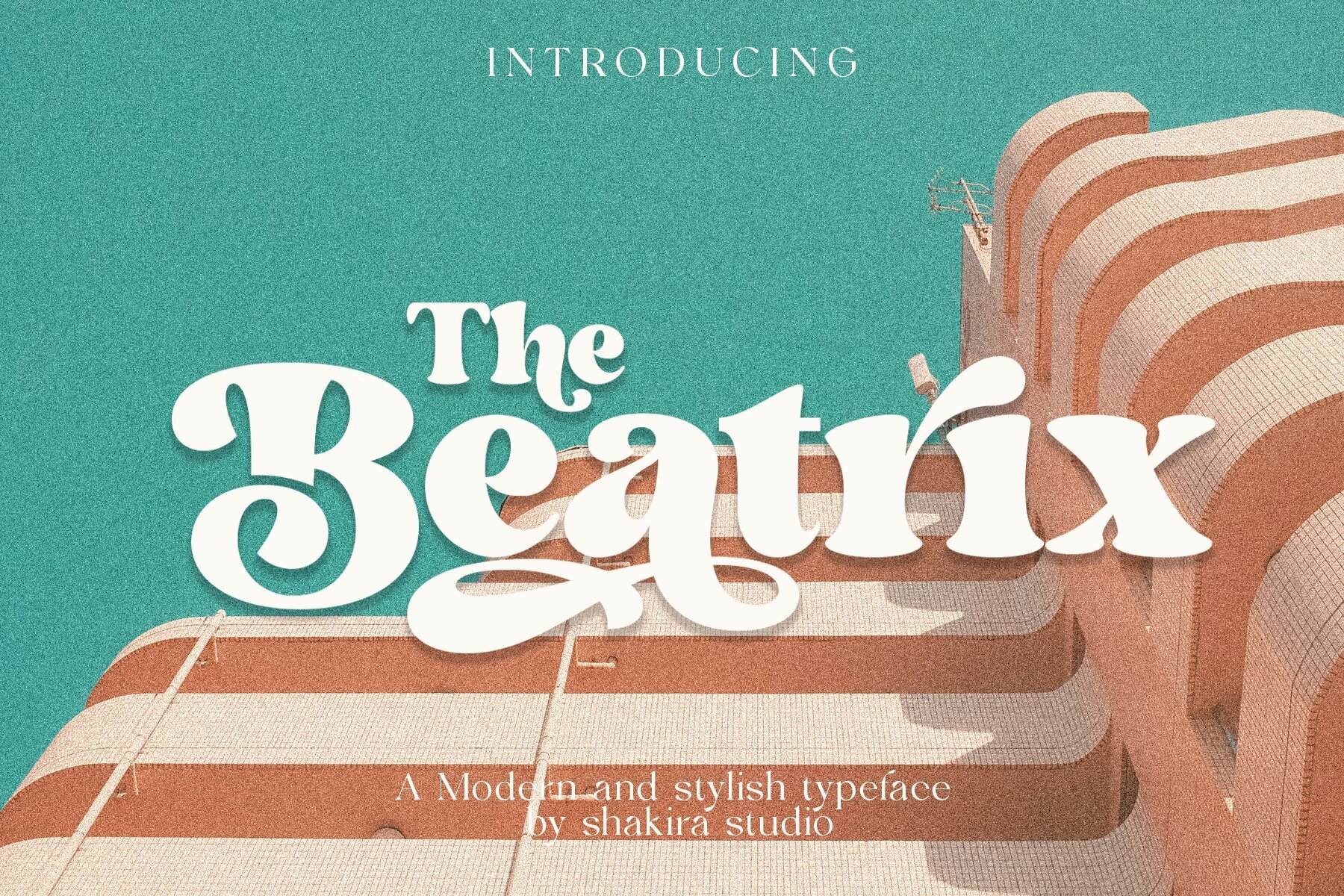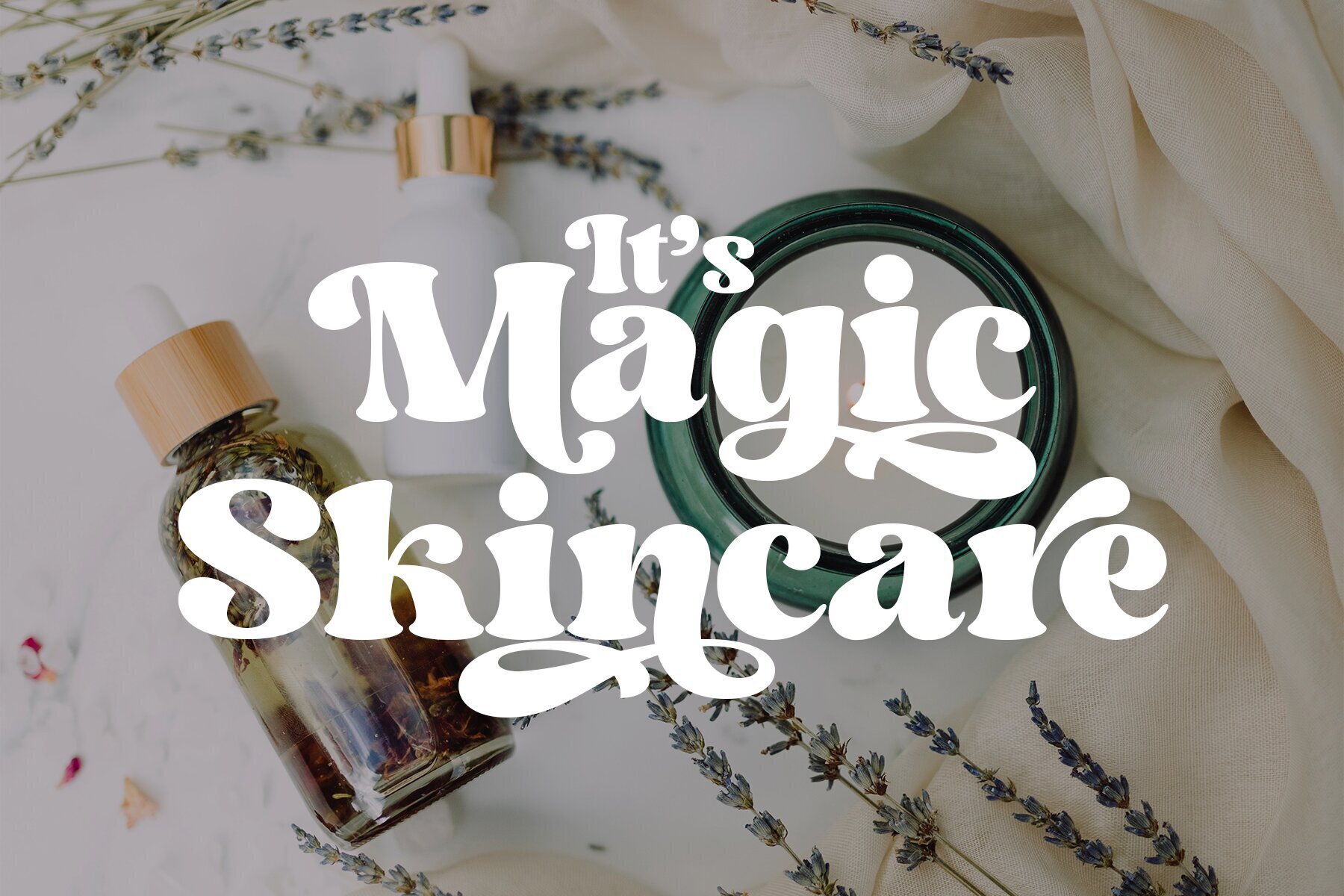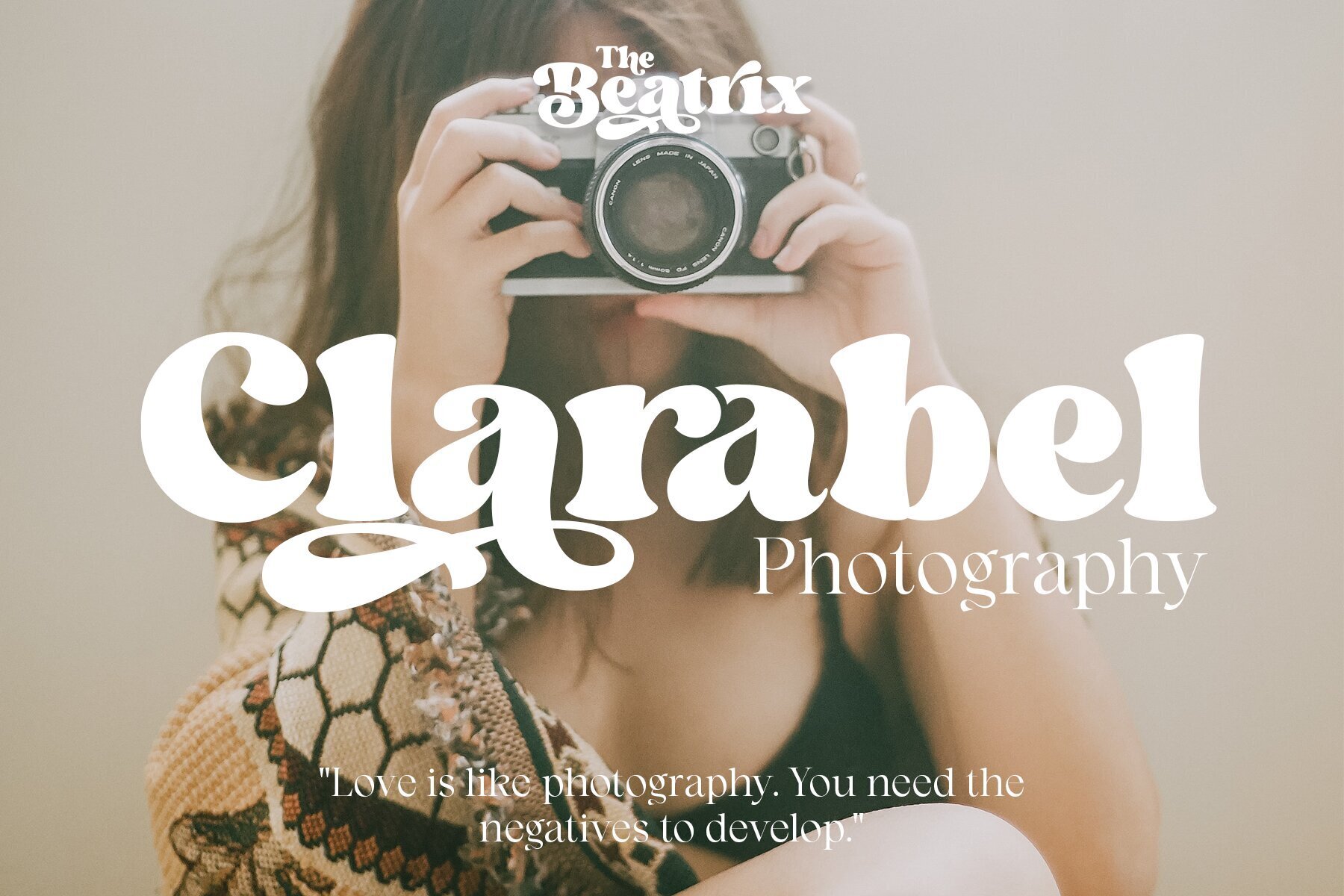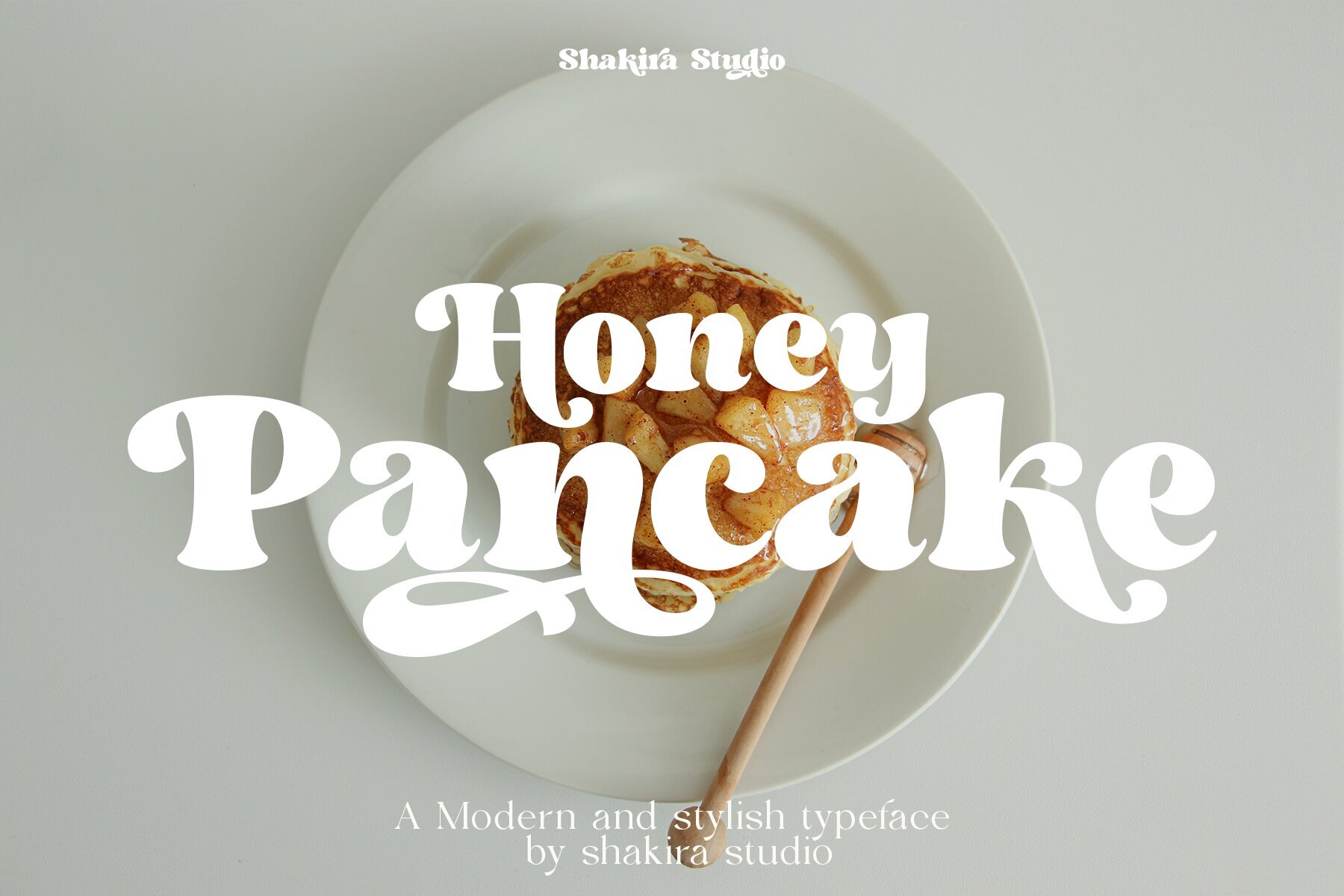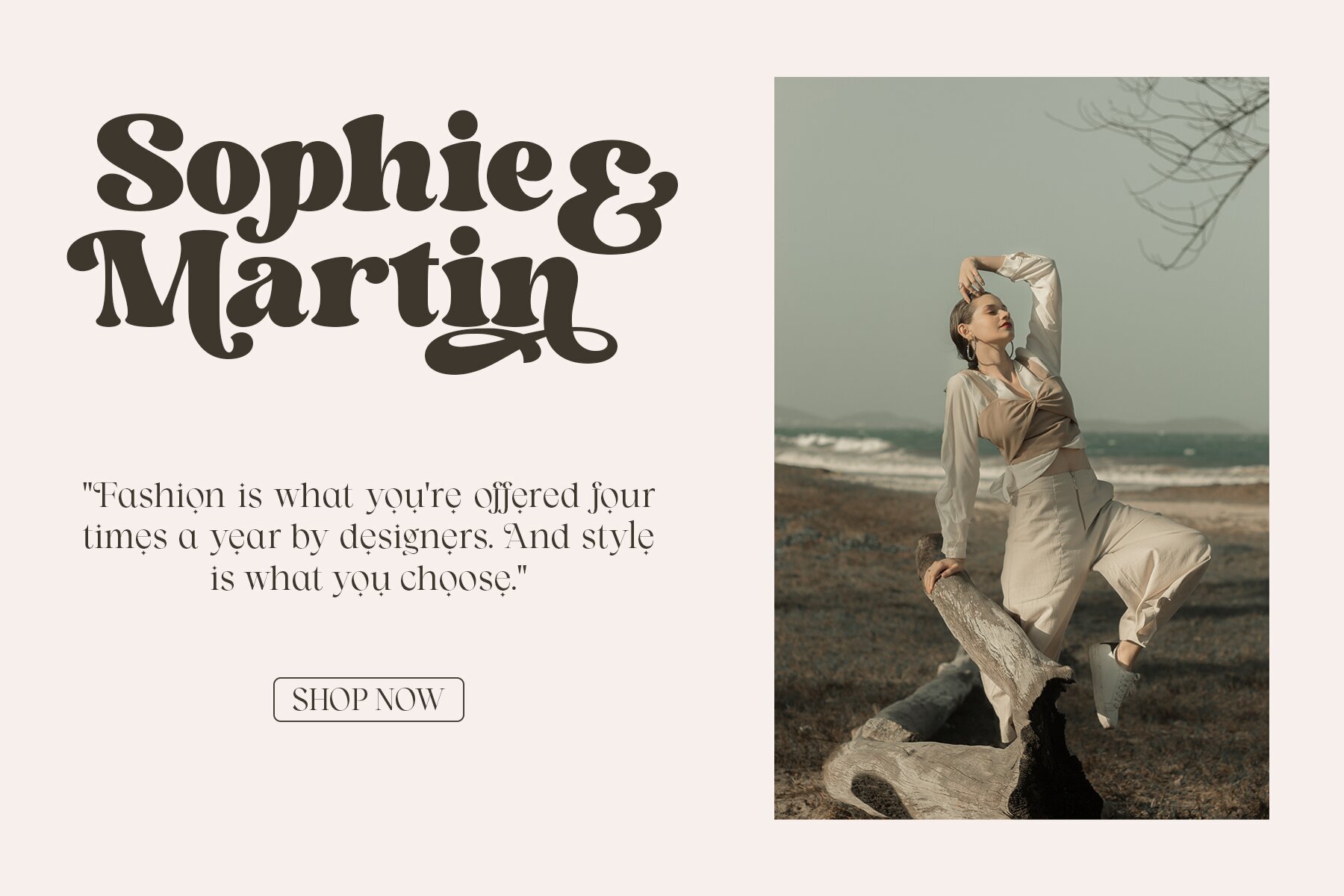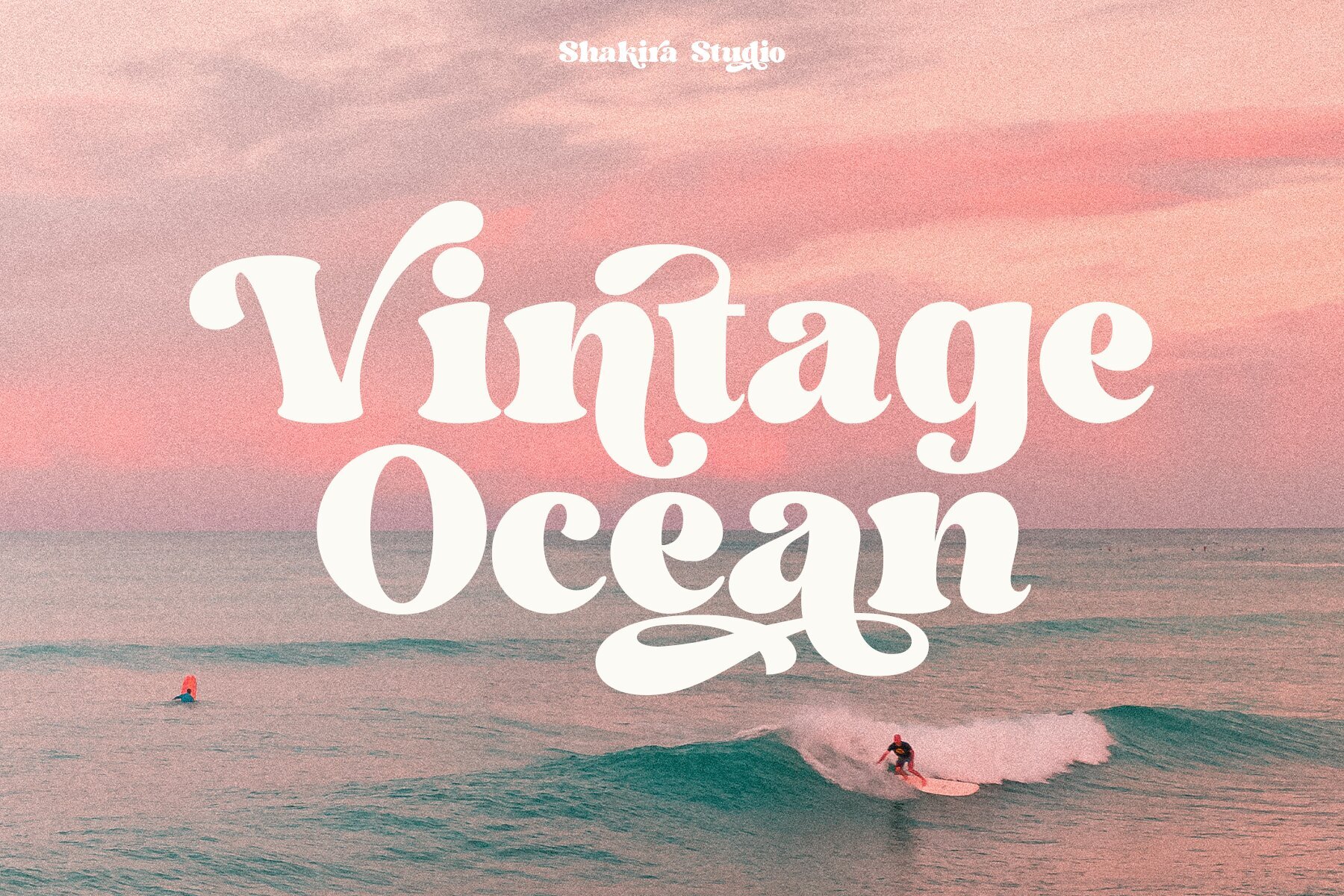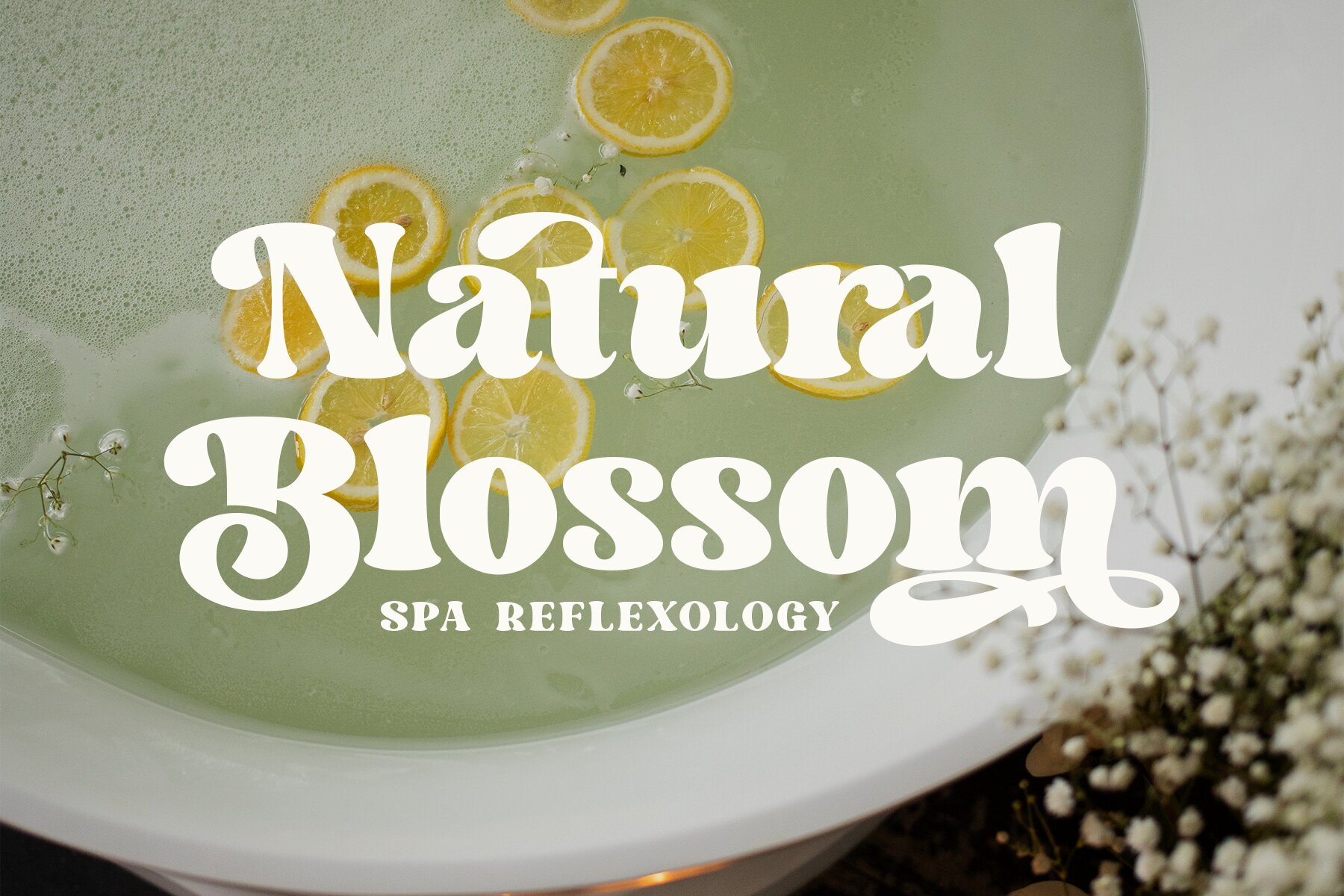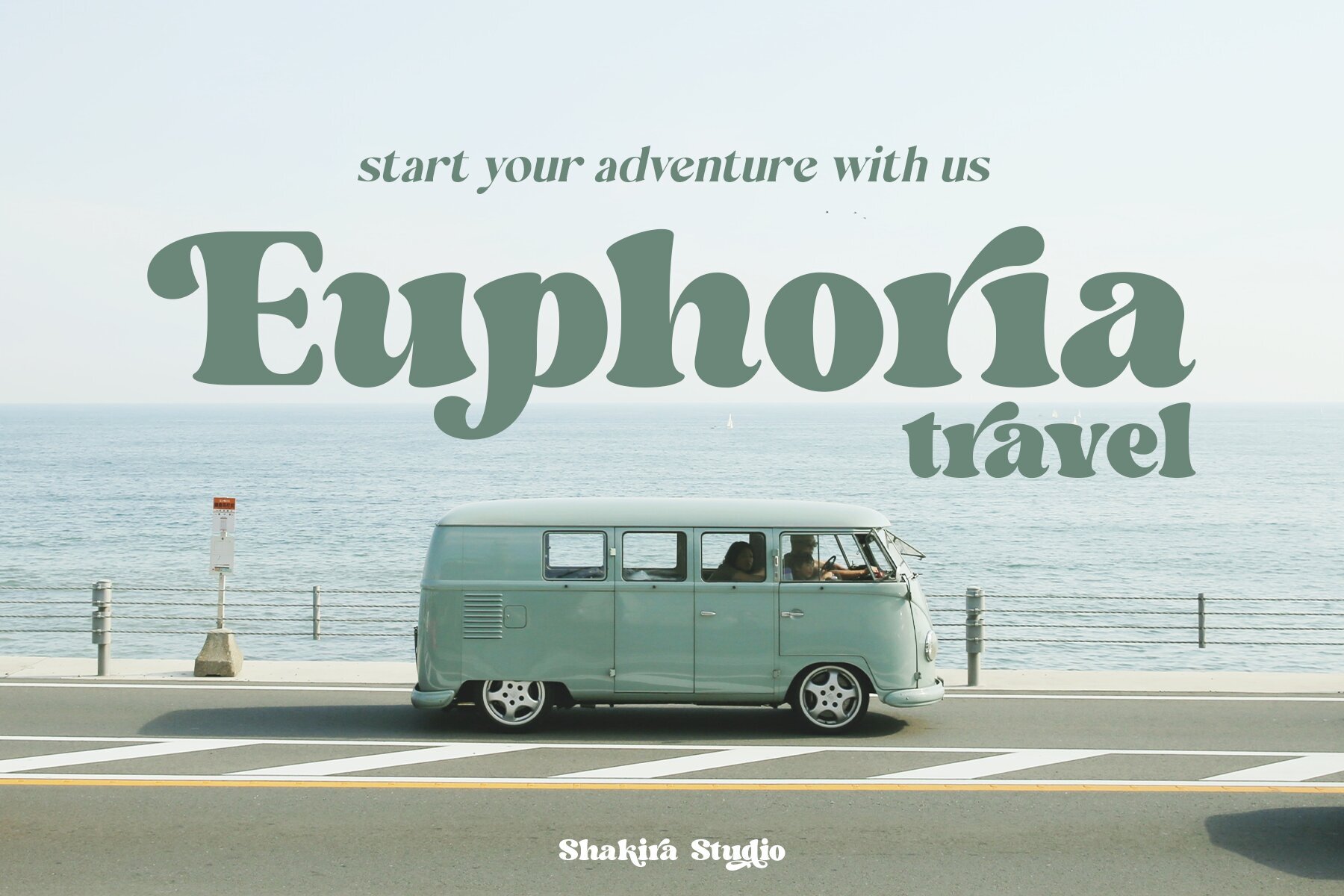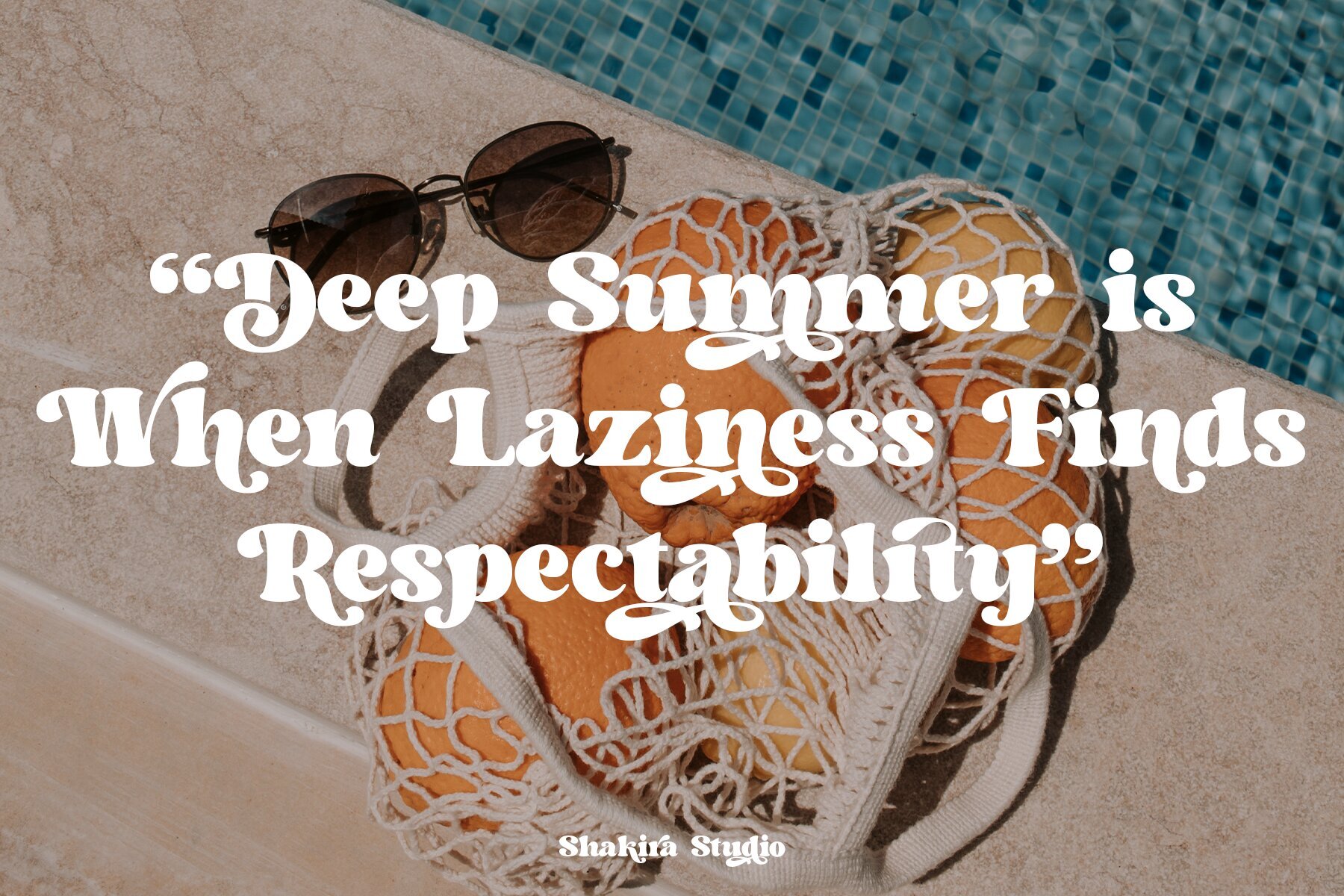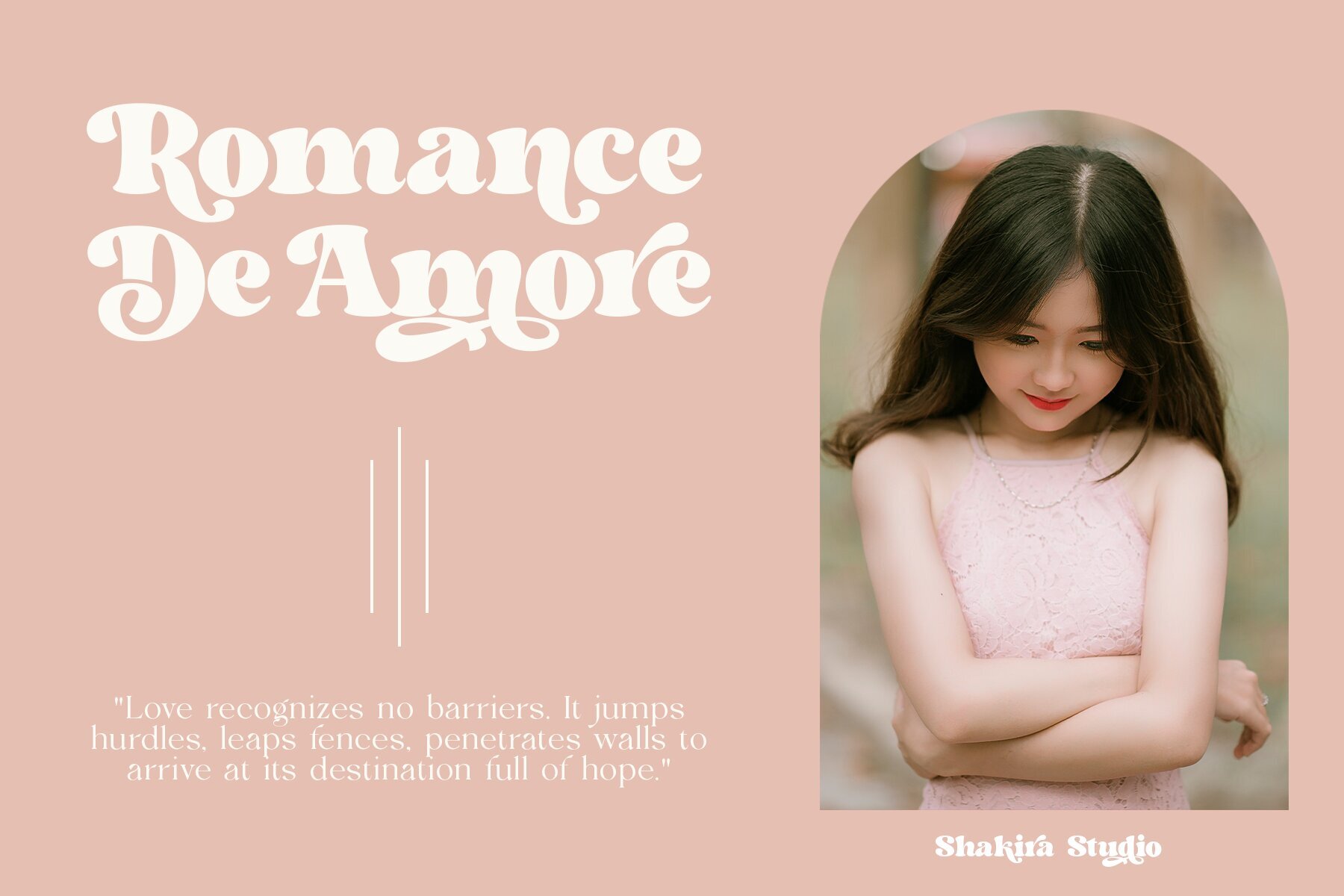
The Beatrix Font
The Beatrix Regular
Say hello to new serif font, The Beatrix! The Beatrix is a serif font that offers the perfect combination of modern and retro feel to each letter. Bold and well-contoured in character, The Beatrix embodies a boldness and charm that cannot be overlooked. The design exudes classic serif elegance but with a touch of fresh, up-to-date style. The Beatrix accentuates uniqueness with a variety of stylish alternatives. Each character alternative provides an interesting creative dimension, presenting a fun combination of modern and retro styles. You as a designer have the freedom to explore and express your unique ideas through captivating typography. The Beatrix is an ideal choice for a variety of design projects. With a modern and retro feel, this font is suitable for use in headlines, logos, branding, marketing materials, posters, and many more. Whether it's a project that wants to convey a contemporary feel or explore the charm of the retro era, The Beatrix has the flexibility to adapt and deliver a strong message.